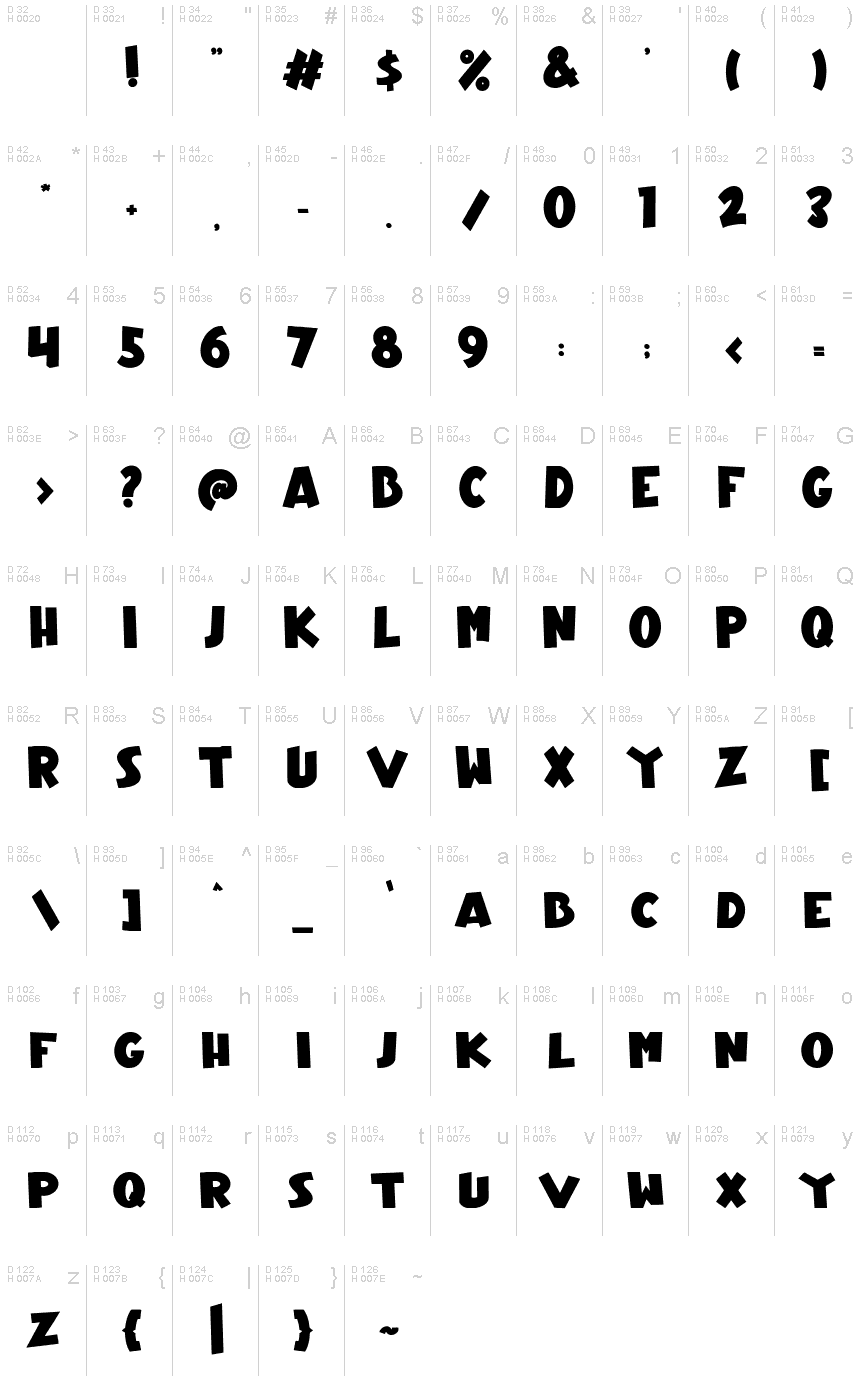
Gifty Glory
Gifty Glory is a bold, cartoon-style display font designed by HATF. Perfect for creating eye-catching visuals, this font is ideal for fun projects like posters, logos, greeting cards and more!